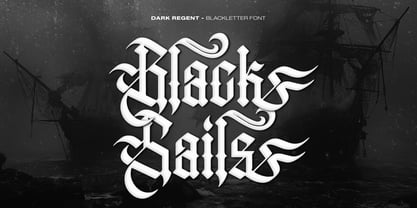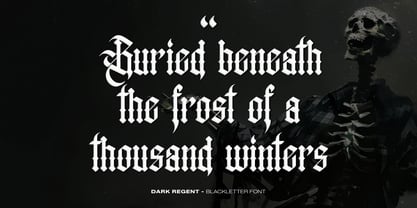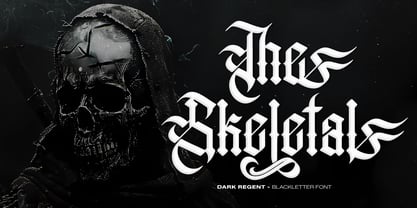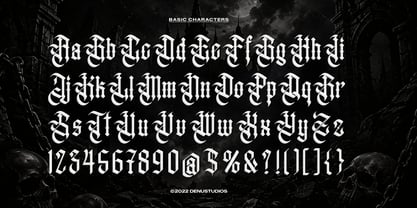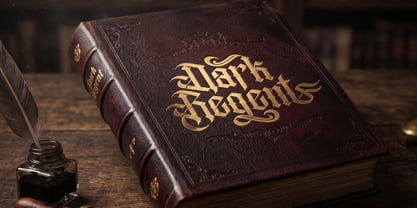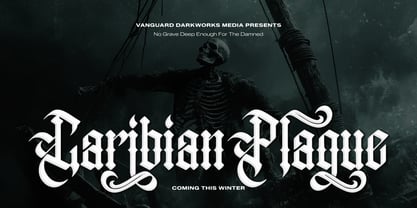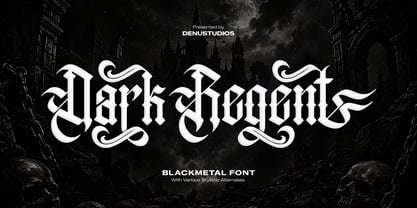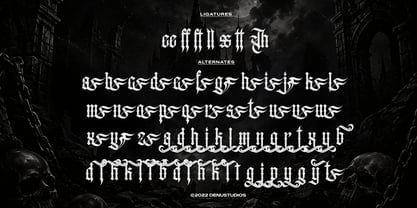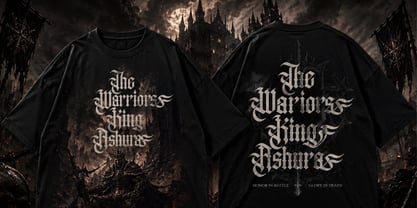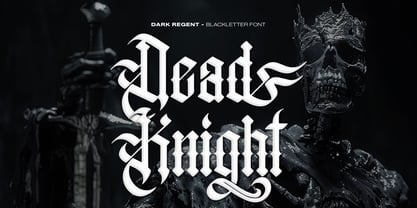
Dark Regent
Dark Regent | Black Metal Font, from Denustudios, suitable for any projects such as: logos, branding projects, homeware designs, product packaging, mugs, quotes, posters, shopping bags, t-shirts, book covers, name card, invitation cards, greeting cards, label, photography, watermark, special events, and all your other lovely projects that need Black Metal a taste.